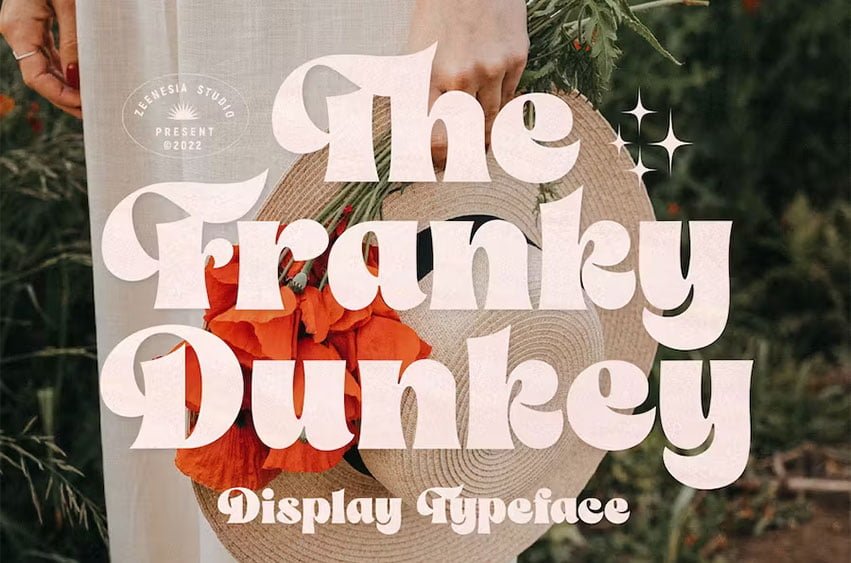
The Franky Dunkey Font is a Bold style serif font with strong character and soft features. modern and classic serif font with a clear and bold look. It’s a very versatile font that works great in large.